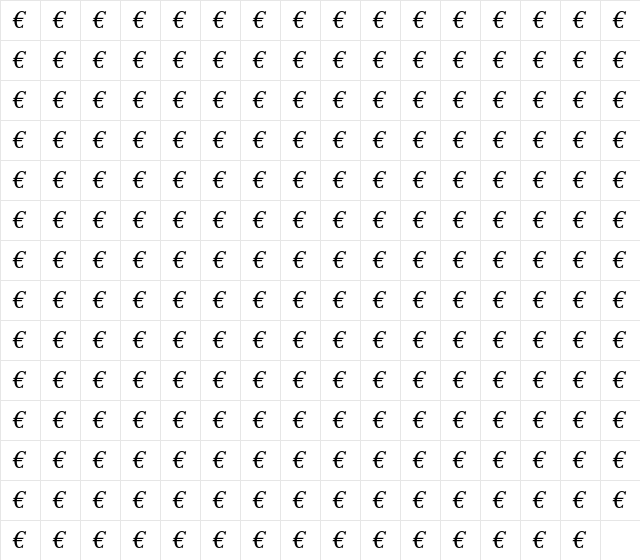
Euro Serif Italic Font Preview
Euro Serif Italic
Design Context for Euro Serif Typeface
Euro Serif carries the refined structure of traditional serif typography, with bracketed terminals and considered proportions that communicate credibility and craft. Its italic angle brings a sense of urgency and motion to the letterforms.
Pro Tip: Set Euro Serif with slightly loose tracking in headlines to let each letterform's detail read clearly at display sizes.